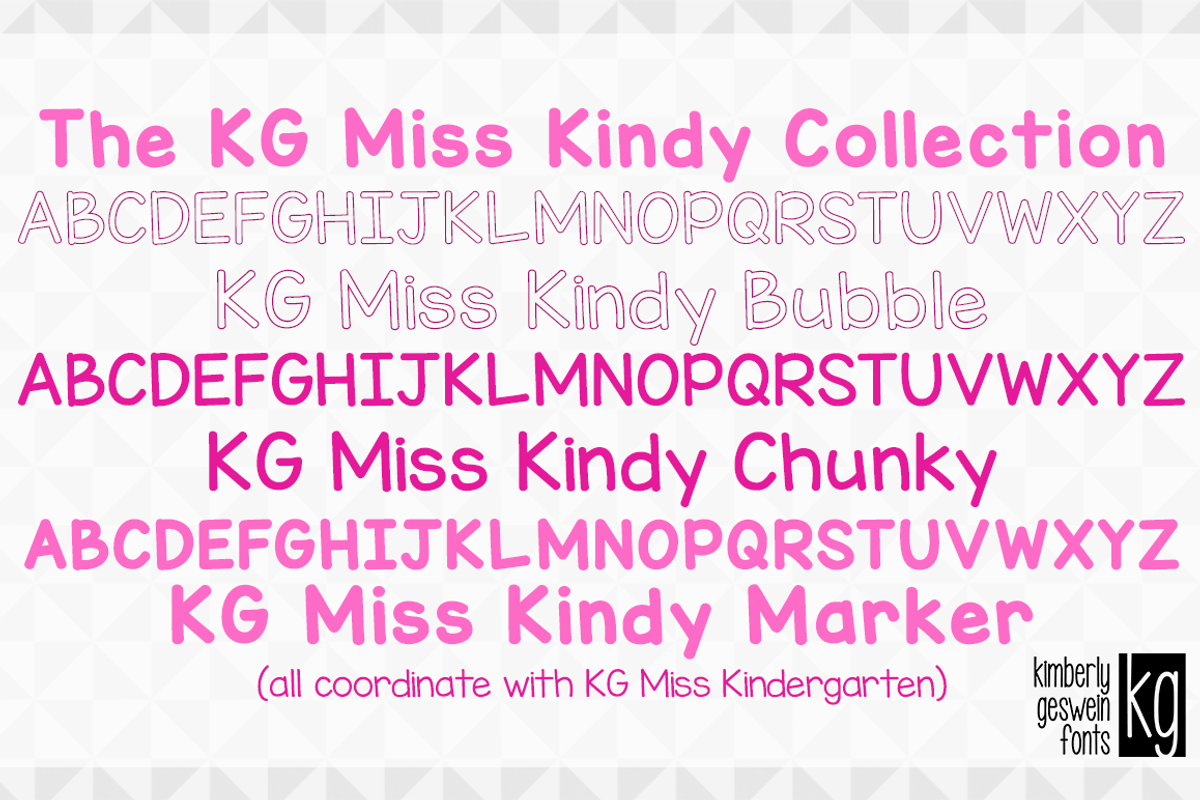
KG Miss Kindy Font Collection Free Download is a playful and heartwarming set of fonts designed with a handwritten charm that’s perfect for educators, kids’ projects, crafts, and casual design work. Created with a friendly, approachable style, this font collection brings joy and personality to everything from classroom materials to greeting cards and DIY printables.
Each font in the collection offers its own unique flair while maintaining a cohesive look, making it easy to mix and match for creative expression. The soft strokes and simple forms are designed for readability and warmth, which is why it’s a favorite among teachers and family-focused designers.
Add a touch of kindness and creativity to your work with the beloved KG Miss Kindy collection.